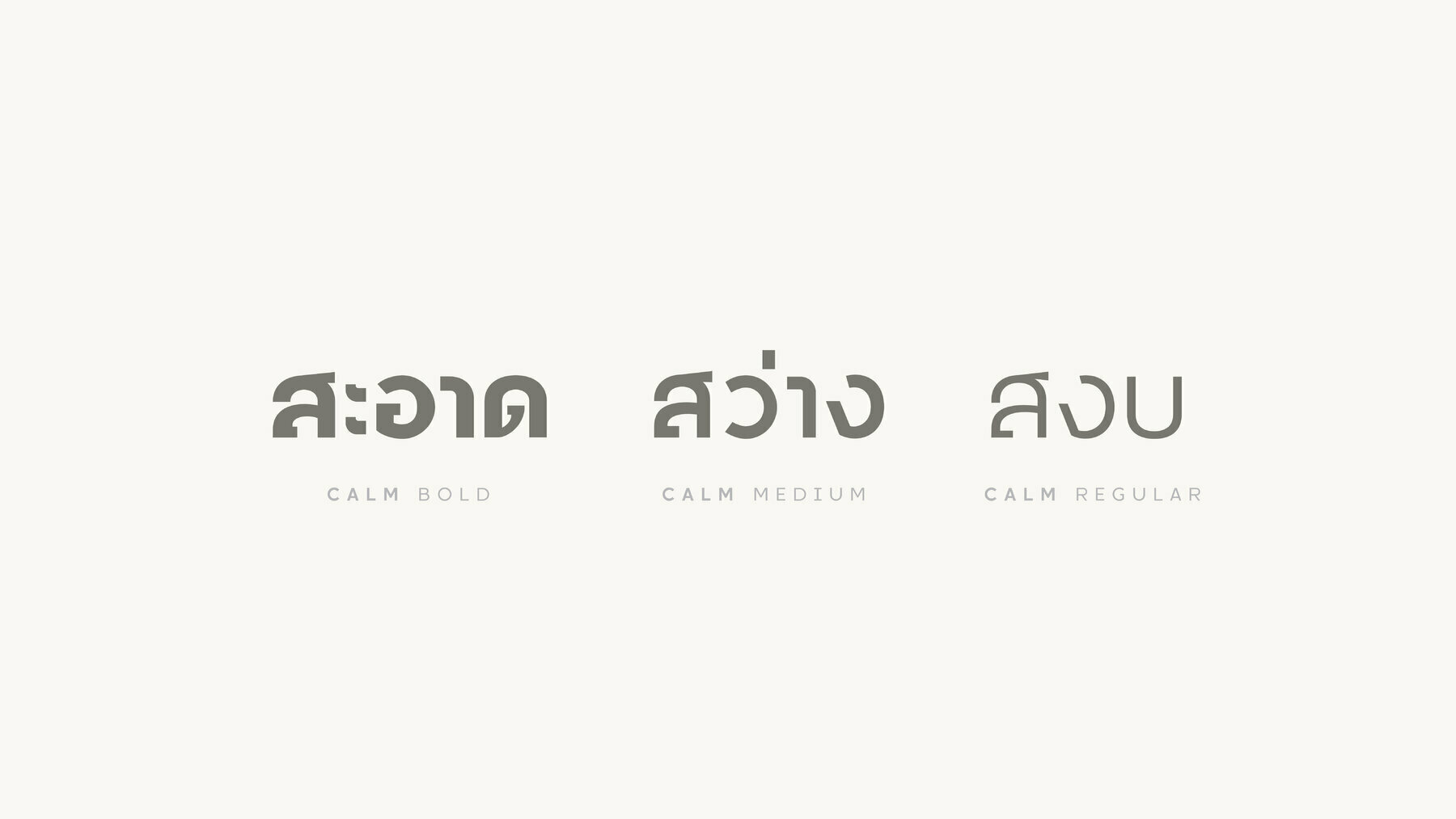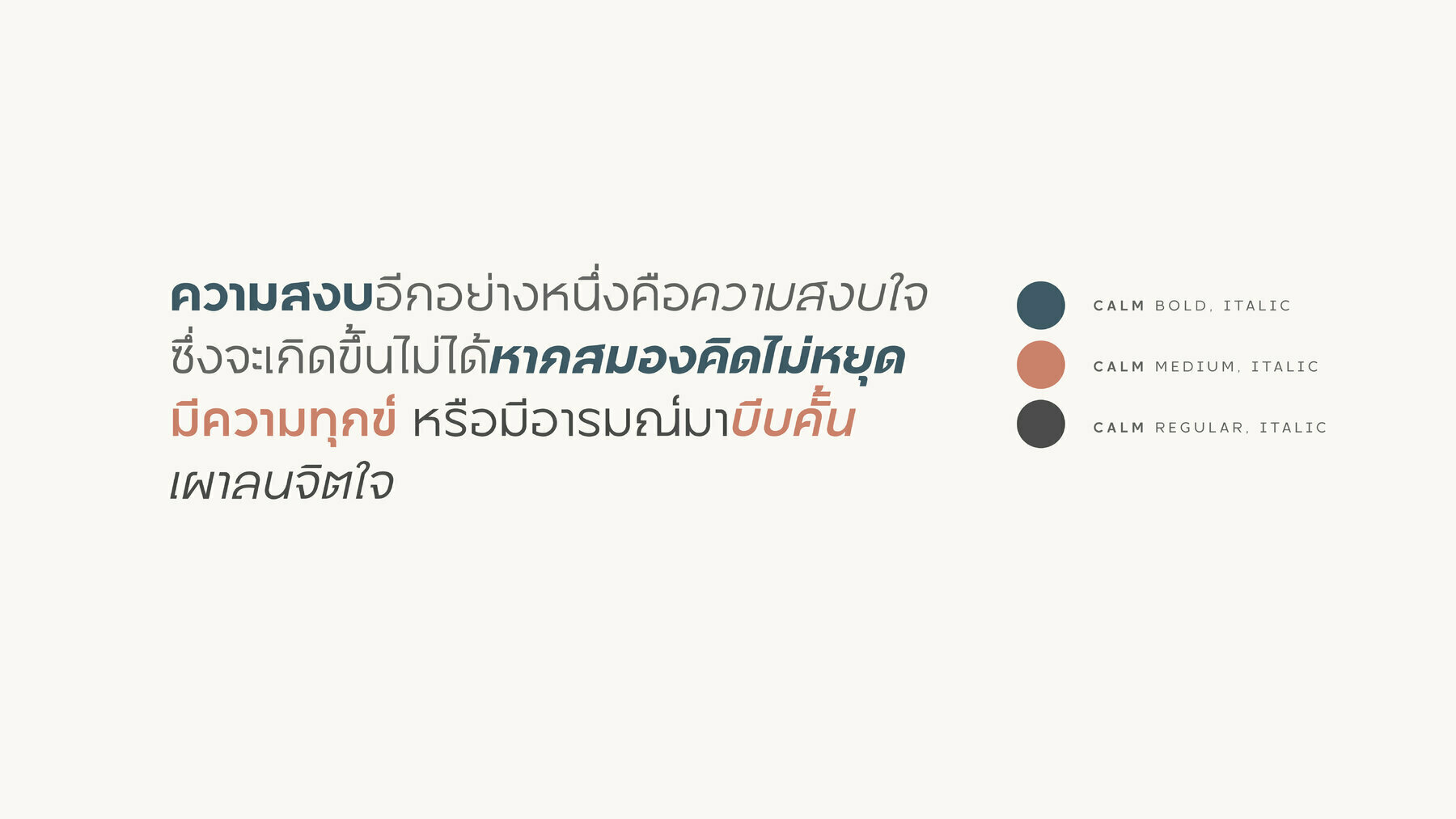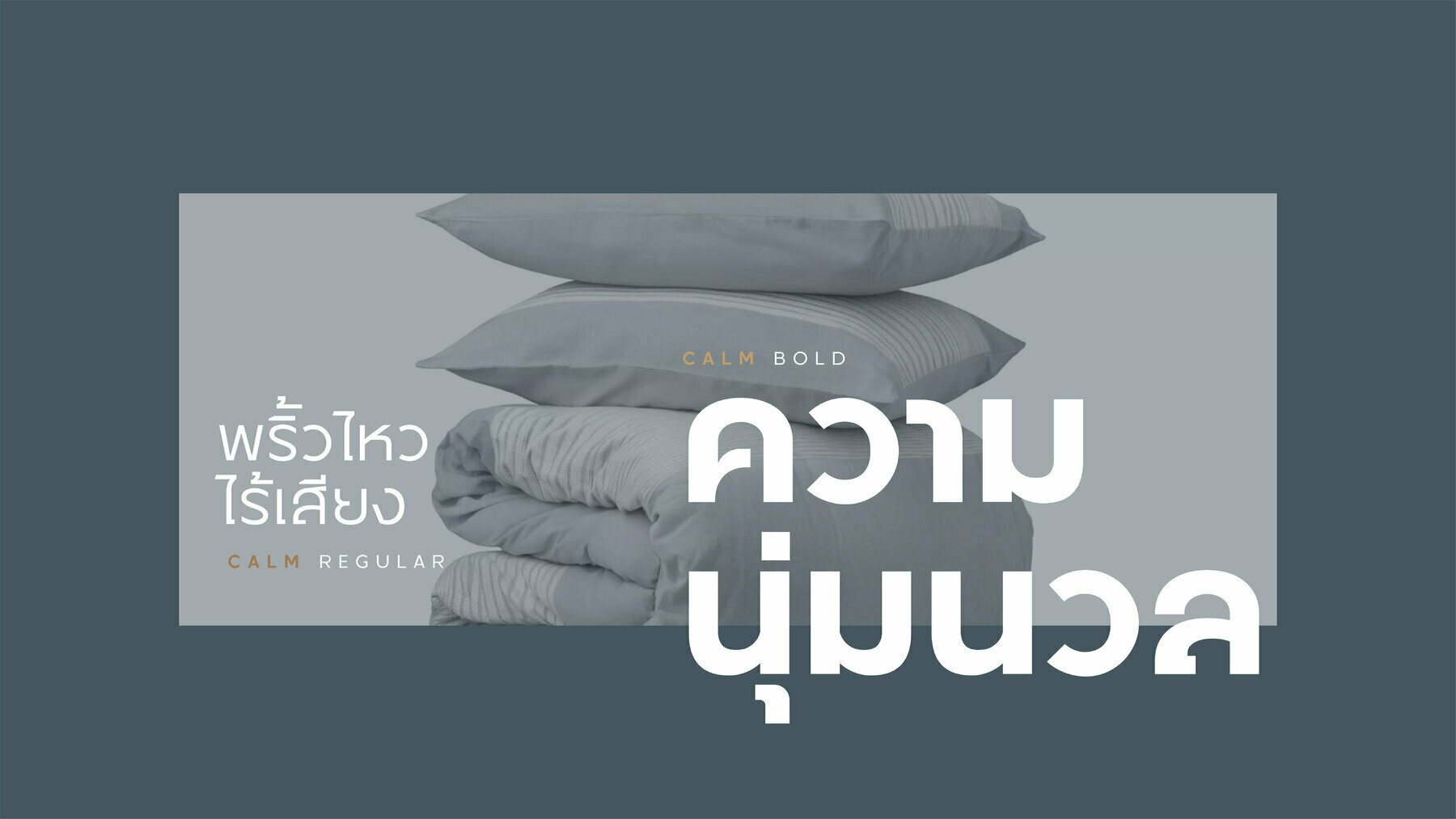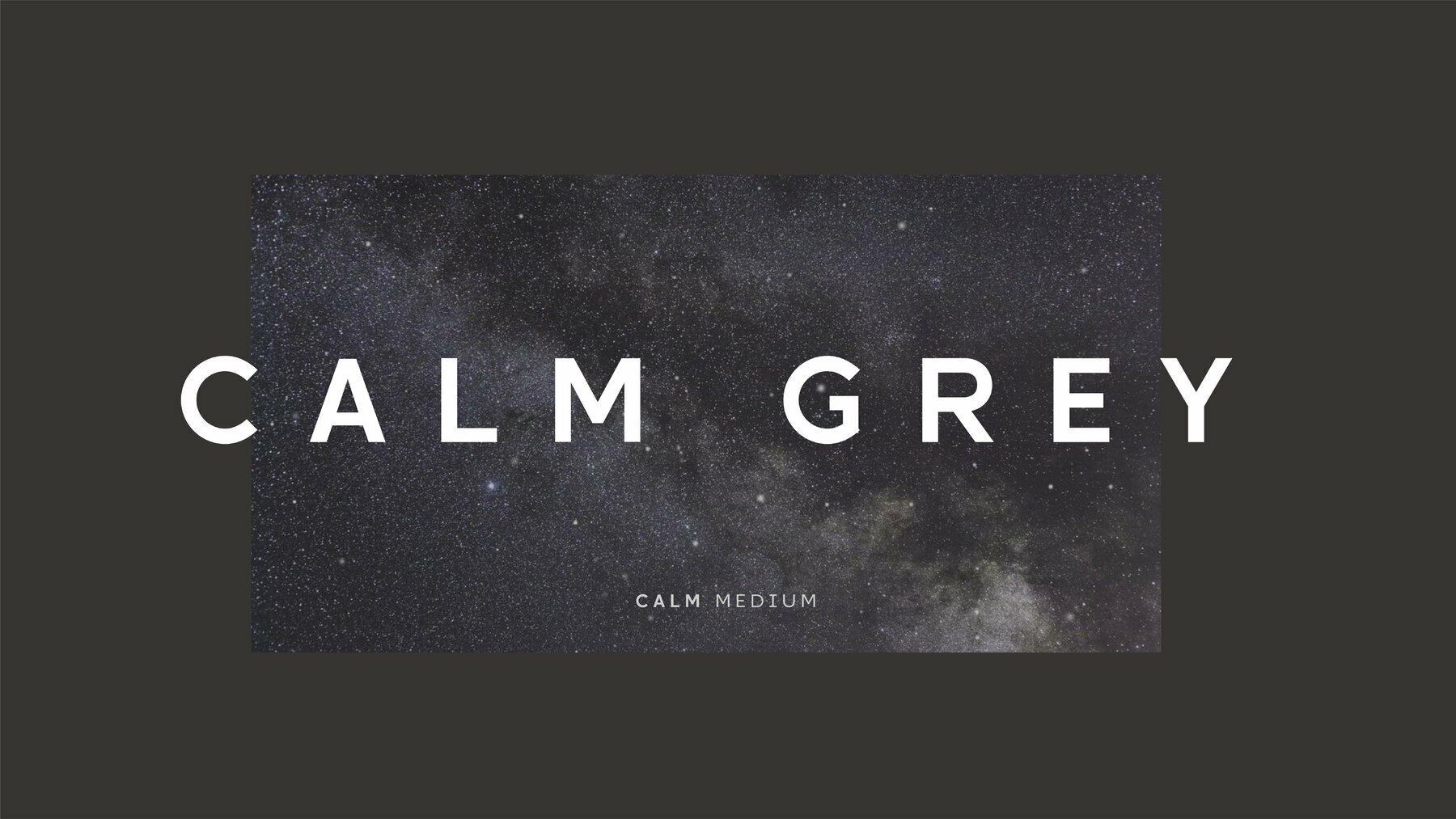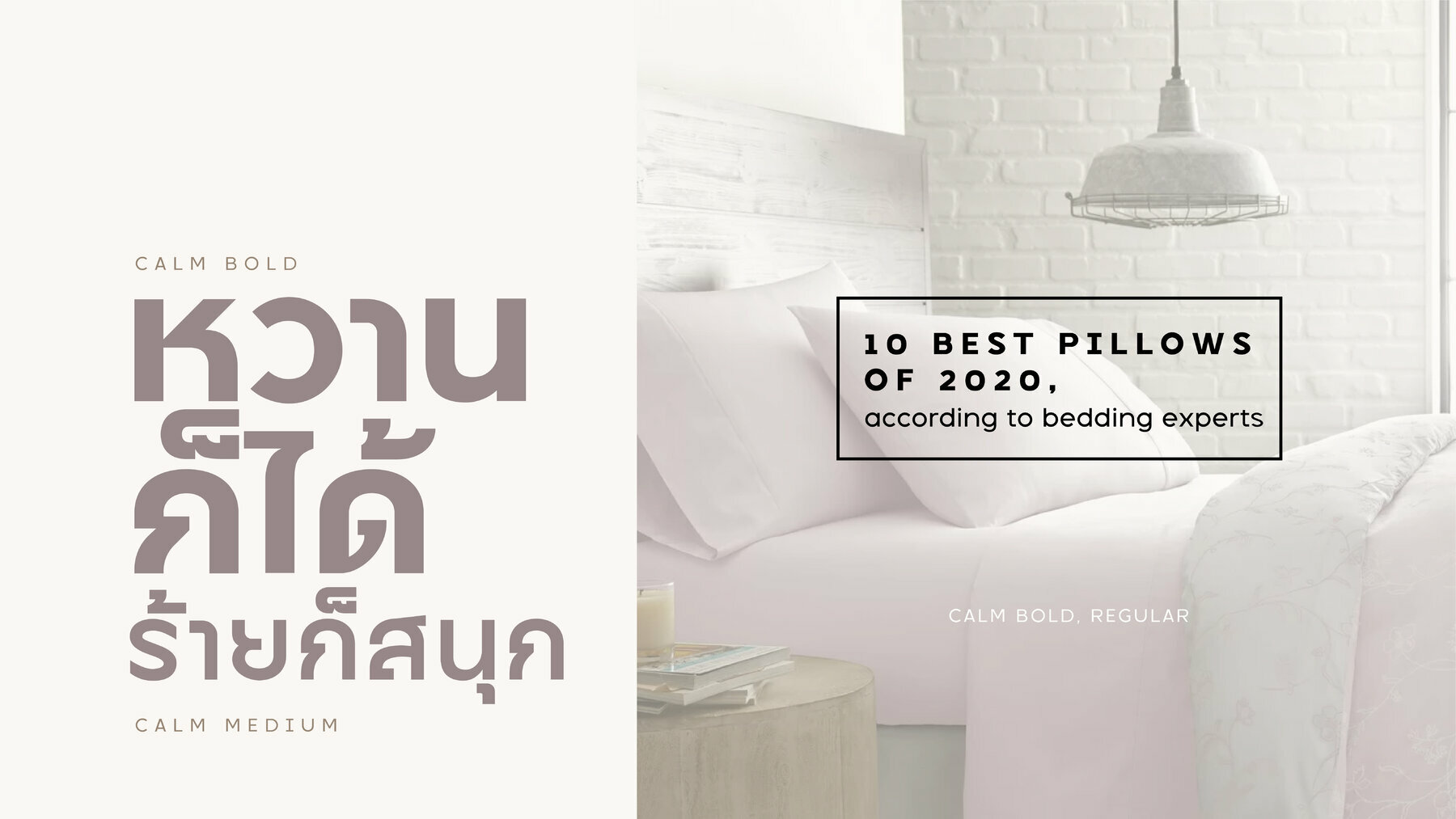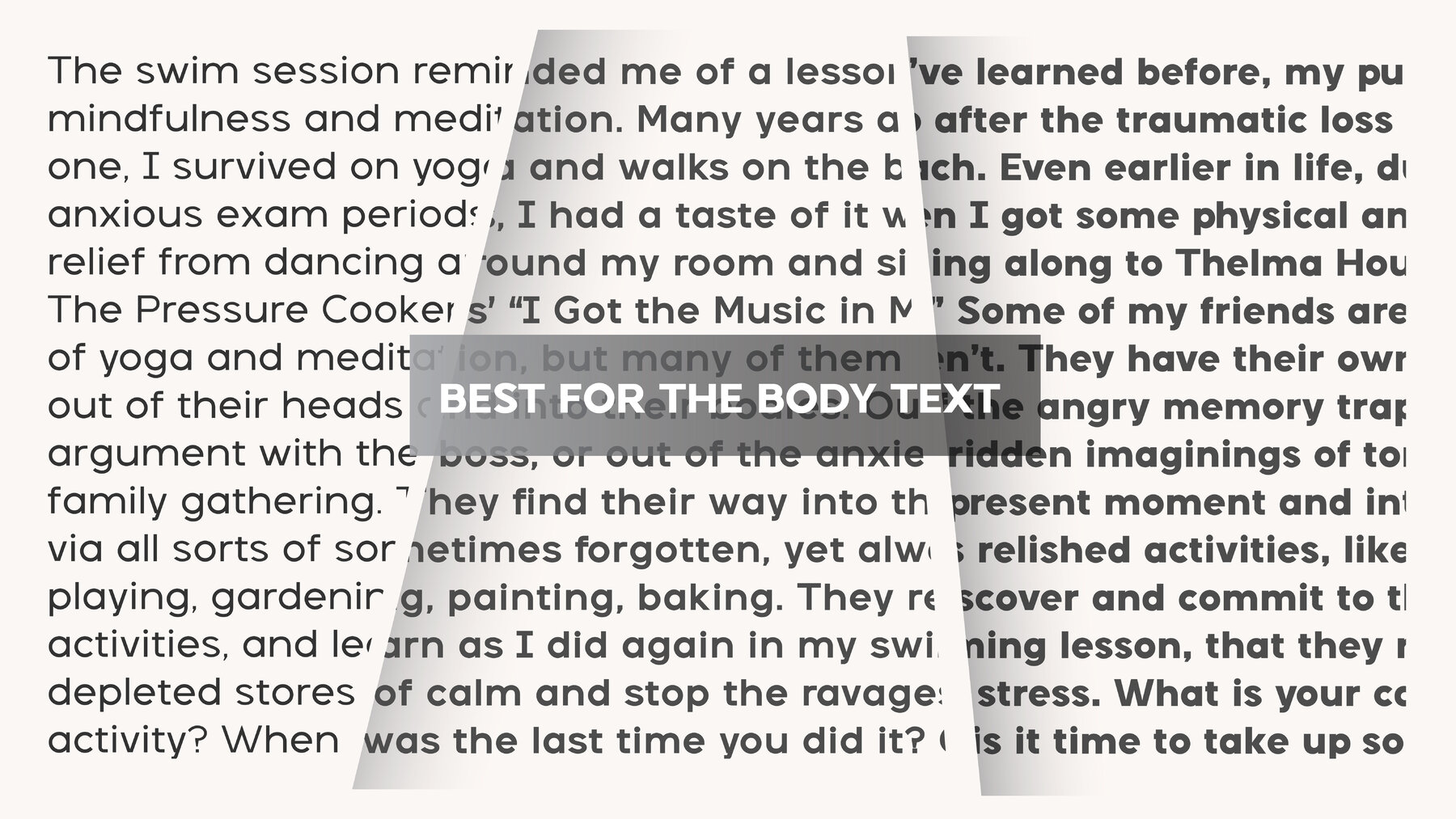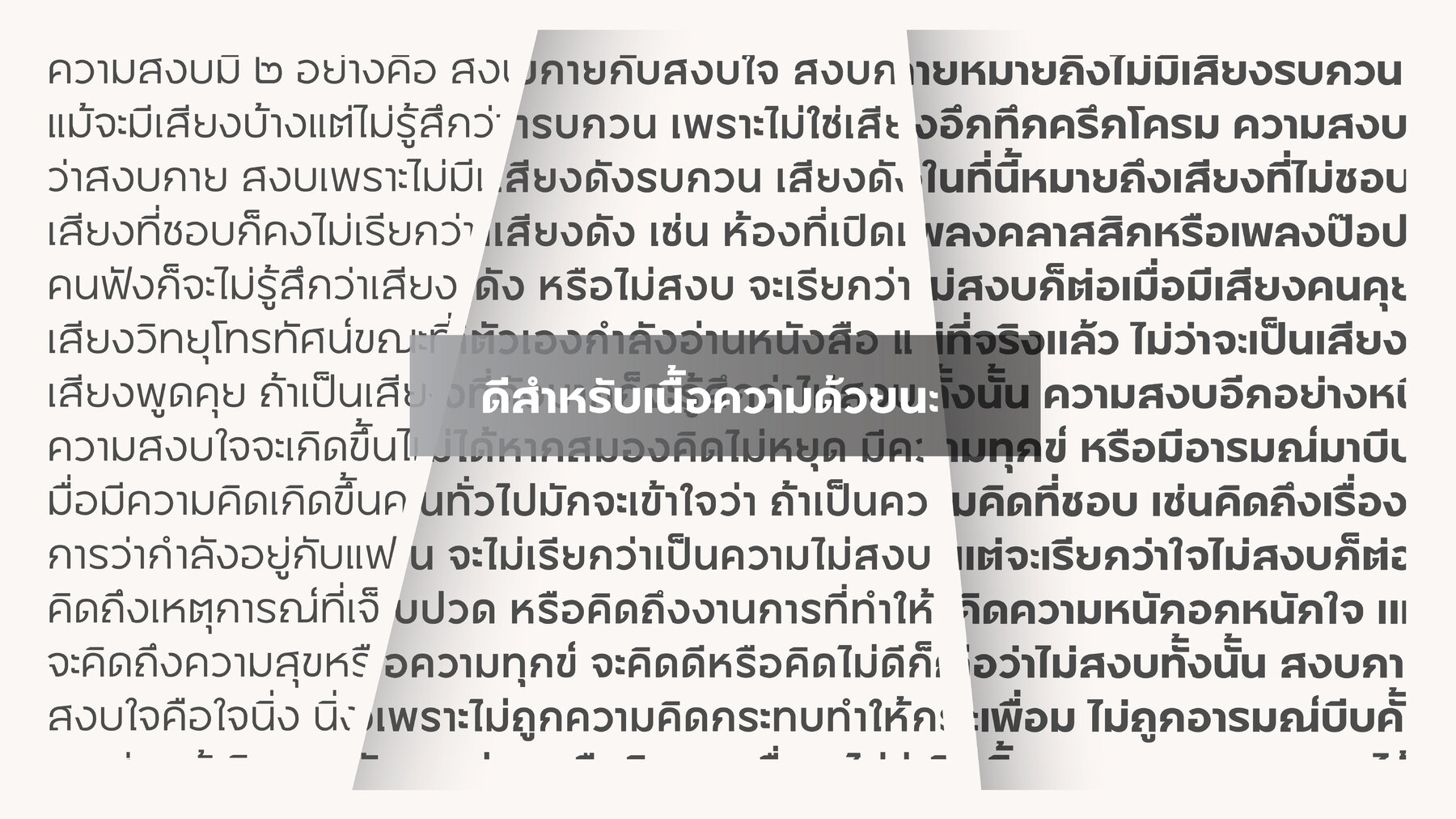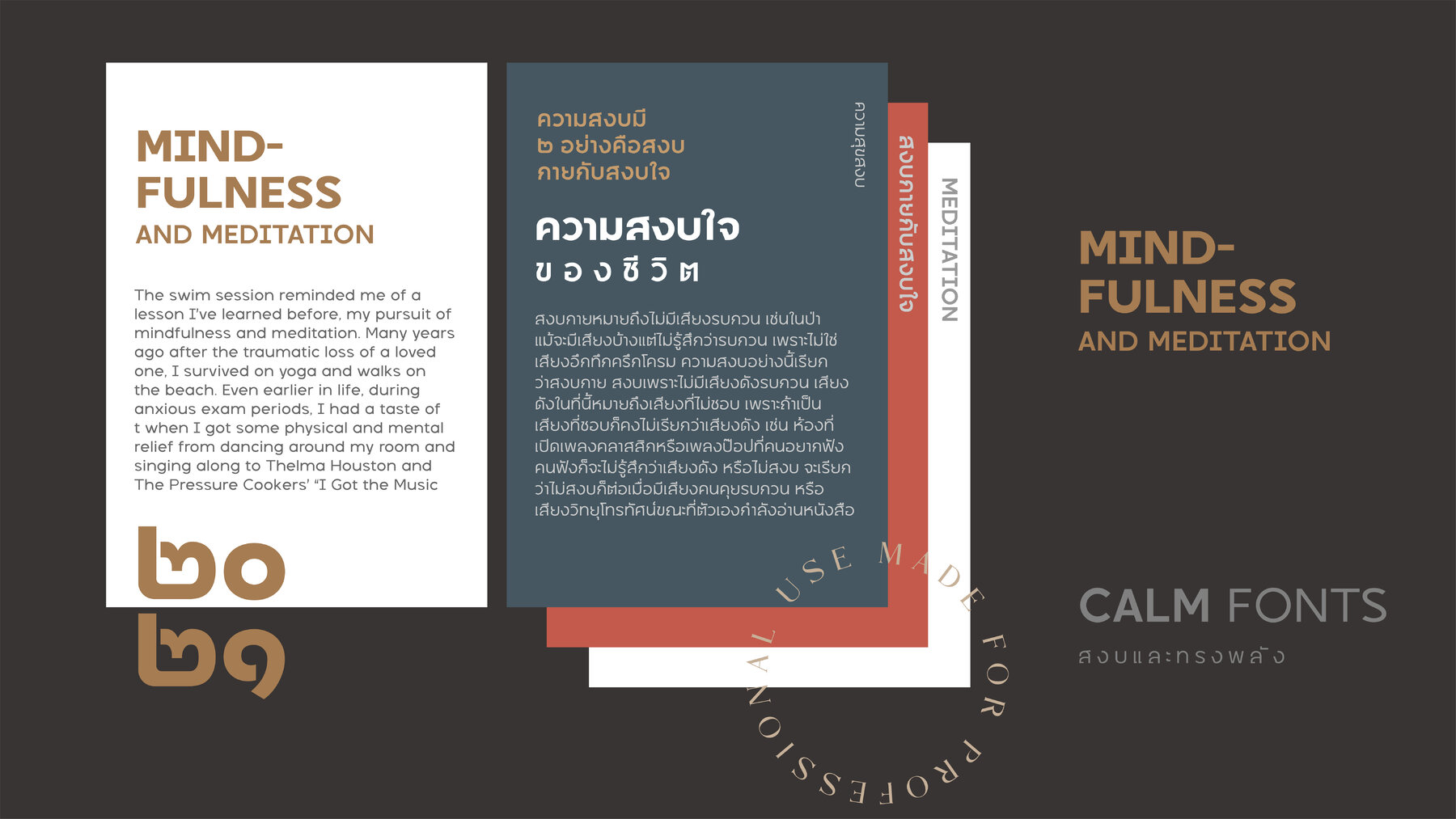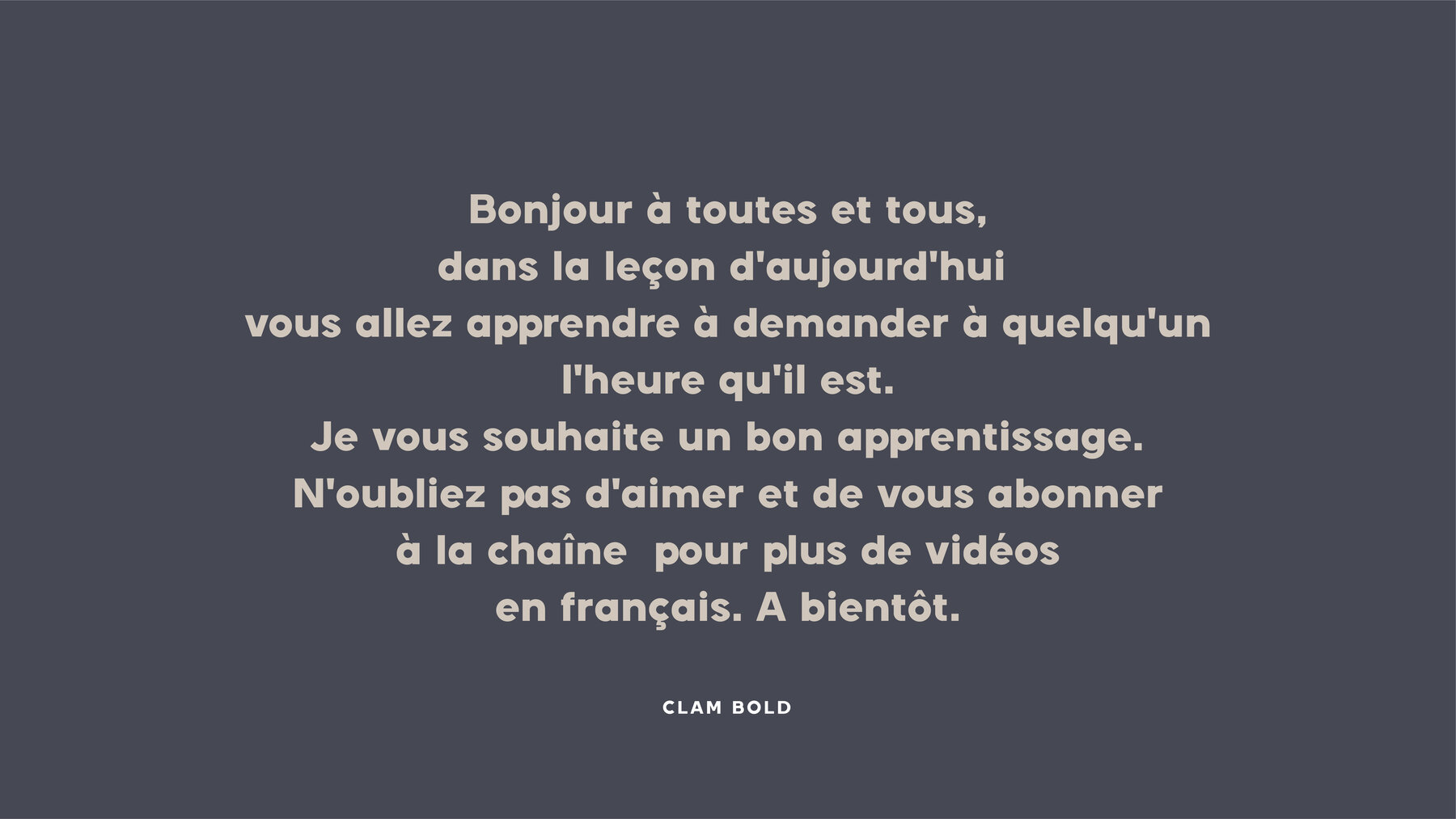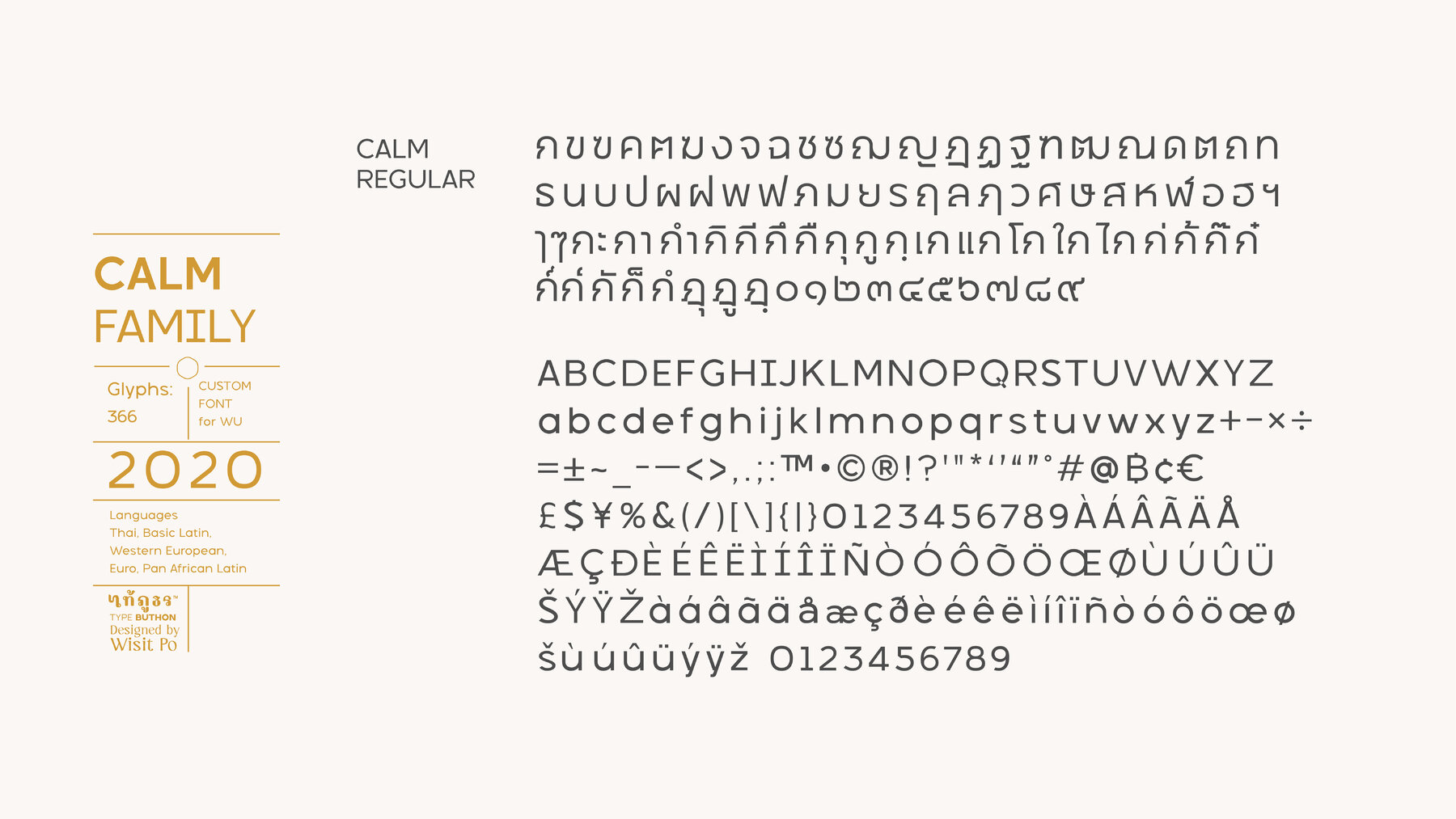
CALM Font
CALM is a sans serif font that marries modern design with a touch of whimsy. Its geometric foundations are enlivened by subtle quirks, offering a versatile option for various creative pursuits. This combination places it beyond standard geometric typefaces, allowing it to enhance designs that need to manifest a distinct voice. Perfect for modern branding, CALM echoes through logo creation, editorial spreads, and web interfaces. Its adaptability extends to packaging and other expansive projects, ensuring it fits multiple applications while maintaining an inviting aura. CALM: Distinctive Geometric Sans Serif